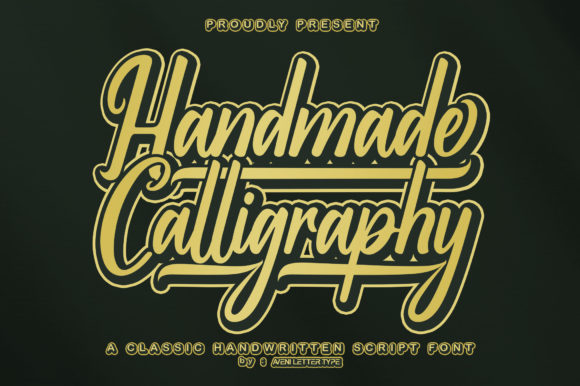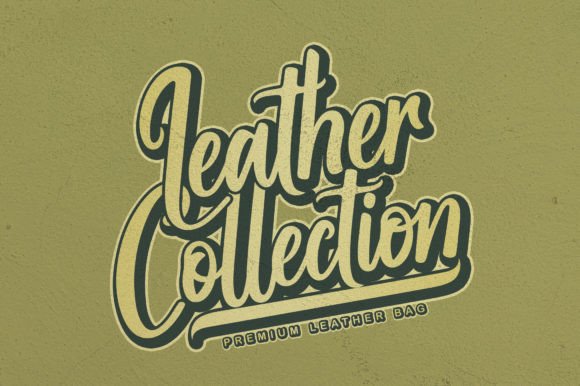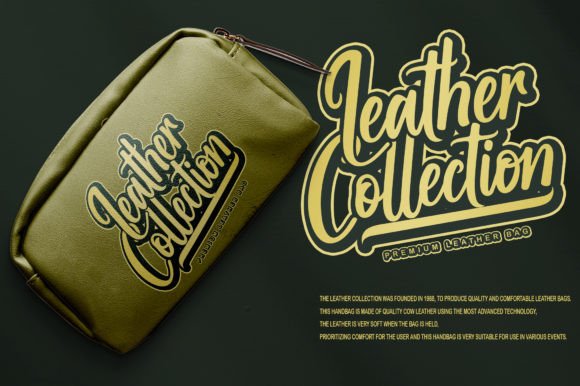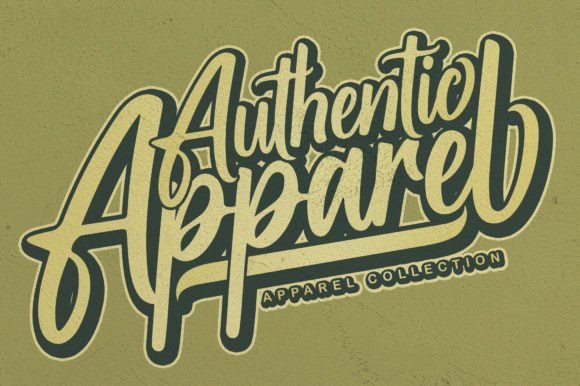
Handmade Calligraphy Font
About the Handmade Calligraphy Font
The Handmade Calligraphy Font is here to transform your projects with its distinctive character and style. Handmade Calligraphy is a classic script font that is stylish and has a very neat kerning. Expertly designed to make your creations look amazing, this font will look great on various ideas. Use them to get creative in outfits, wedding invitations, business cards, t-shirt branding, pouch or bag branding, social media posts good, and more! Handmade Calligraphy is PUA encoded, which means you can access all glyphs and swashes with ease!
This script’s elegant yet informal style is ideal for branding projects requiring a touch of handmade charm, such as boutique businesses, wedding stationery, or artisanal food packaging. It also excels in short-form text like headlines, logos, and social media graphics. However, avoid using it for body text or lengthy paragraphs; its decorative nature makes it less legible at smaller sizes.
Consider pairing Handmade Calligraphy with a clean sans-serif like Montserrat for a contemporary feel, or a classic serif like Garamond for a more traditional look. For a playful contrast, a simple geometric sans-serif could work well.
Its overall personality is sophisticated yet approachable; it projects a sense of quality craftsmanship without being overly fussy.
Handmade Calligraphy Font Usage Examples
Handmade Calligraphy Font Example